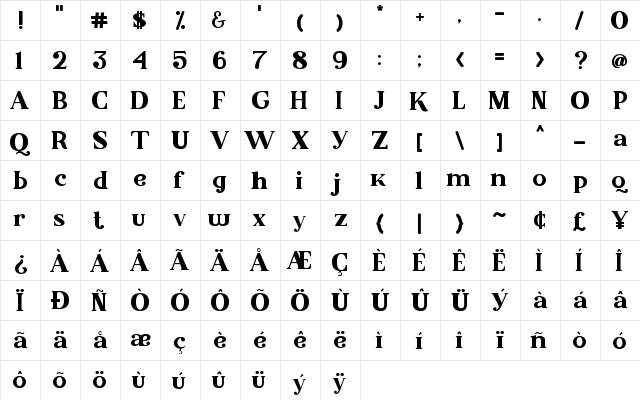
Malcolm Regular
Design Context for Malcolm Typeface
Malcolm offers clean, dependable letterforms without strong stylistic allegiance, making it a practical choice for designers who need flexibility.
Pro Tip: Use Malcolm in both headline and body roles to test its range before committing to a single application.